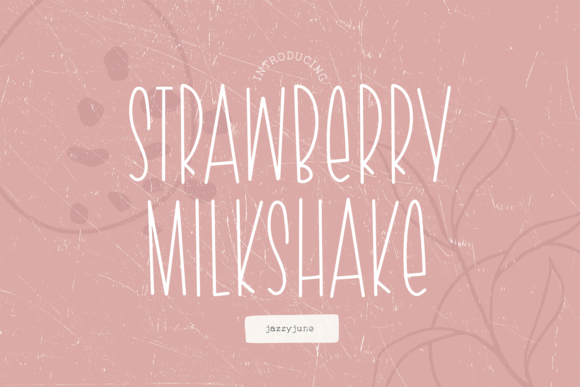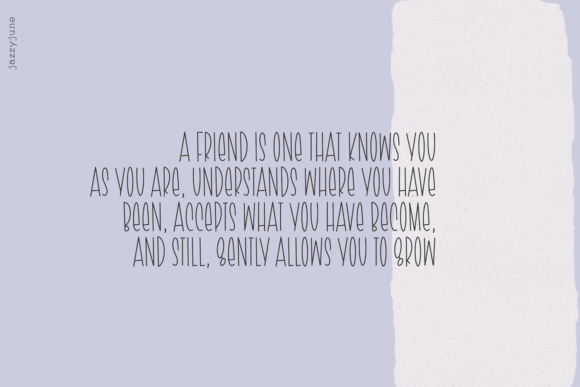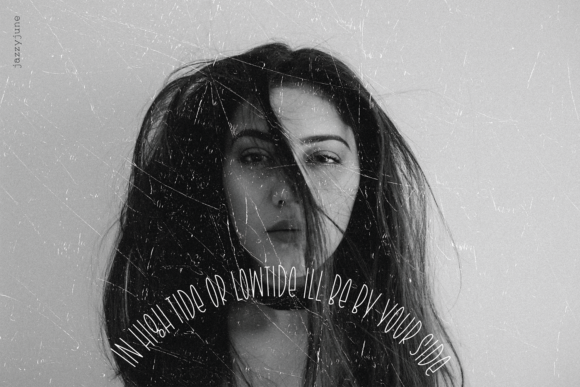
About Strawberry Milkshake Font
Strawberry Milkshake is a whimsical handwritten font. Whether you’re looking for fonts for Instagram or calligraphy scripts for DIY projects, Strawberry Milkshake will turn any creative idea into a true piece of art!